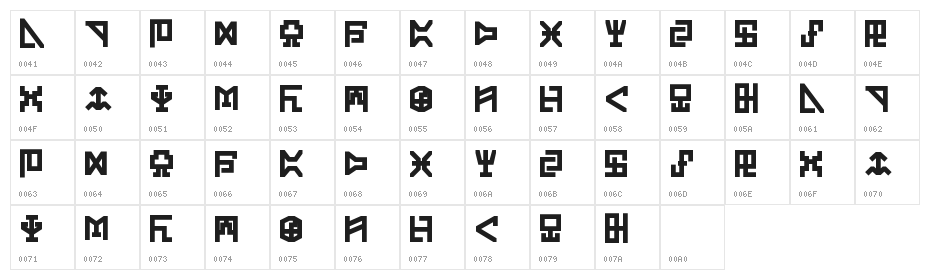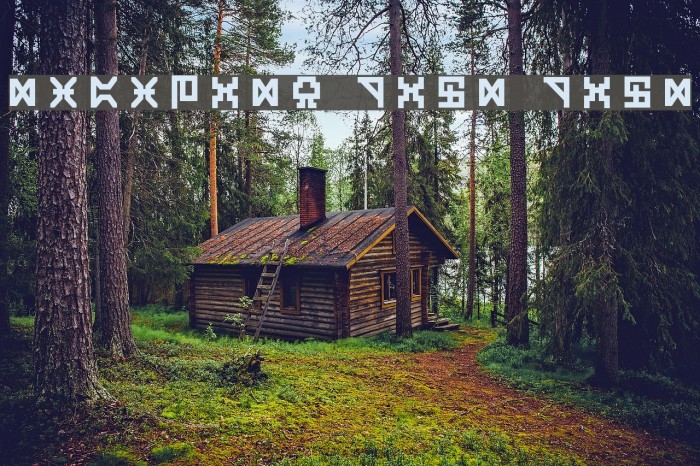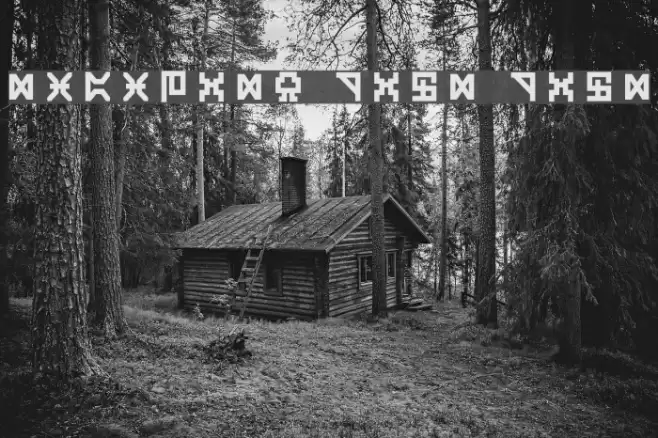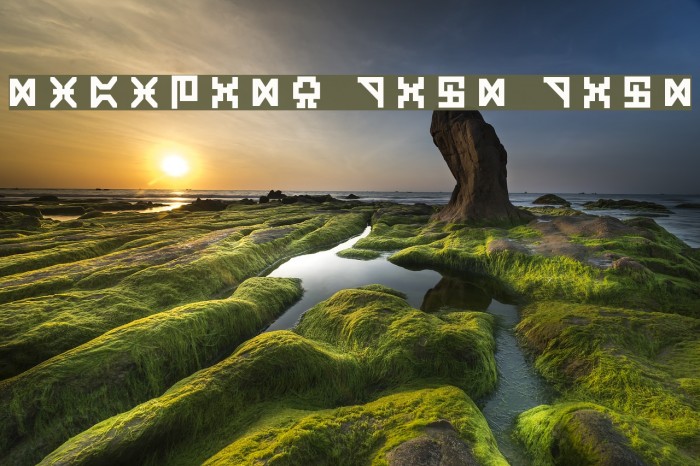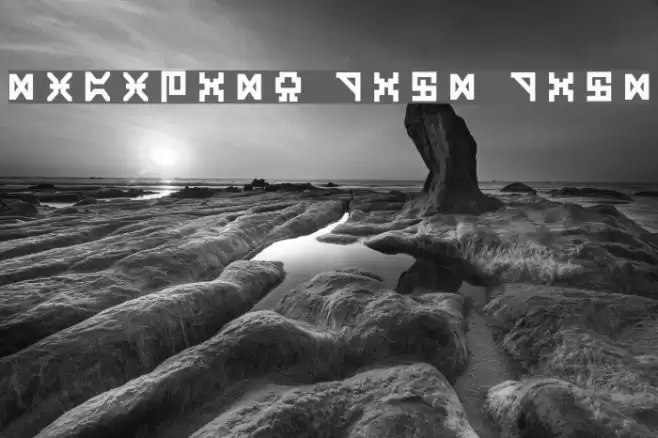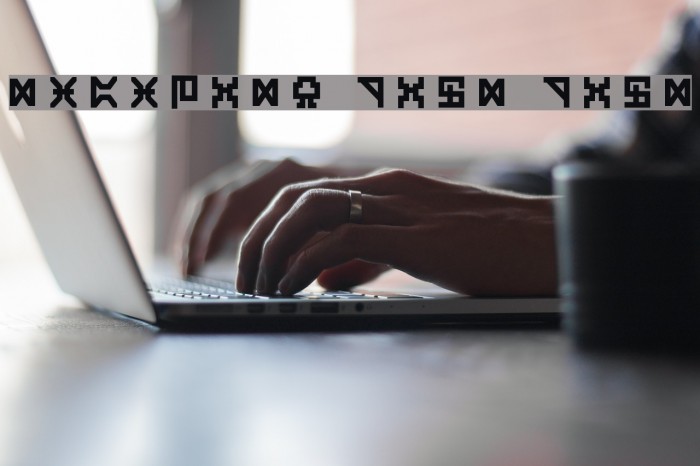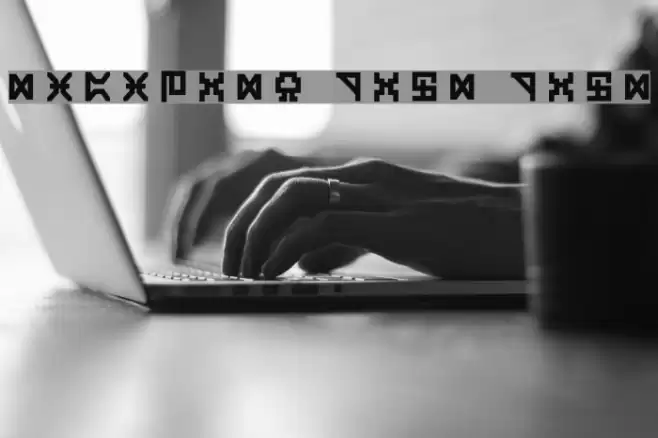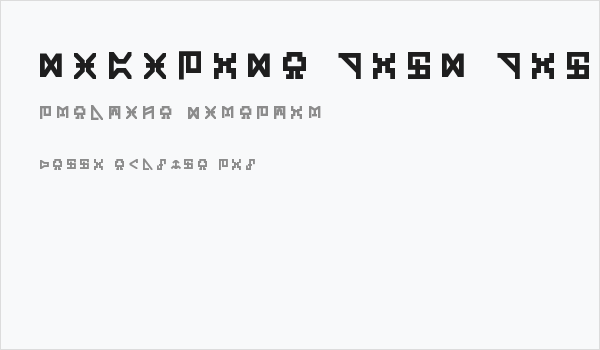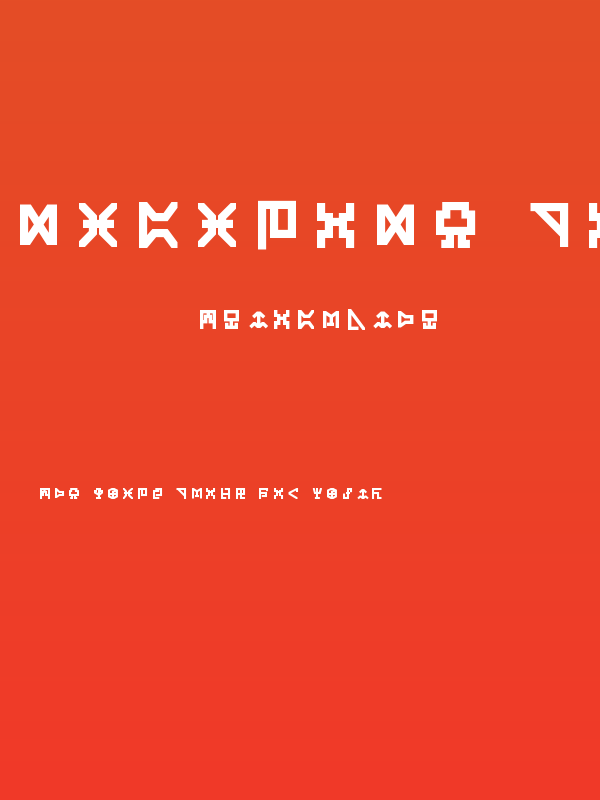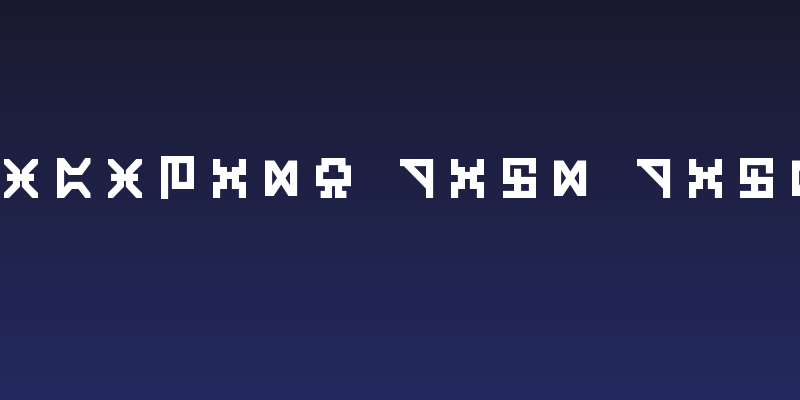
Digicode Bold Bold Font
Digicode Bold Bold Description
This font features a highly stylized and geometric design, reminiscent of digital or futuristic aesthetics. Each character is constructed with bold, angular lines and sharp edges, creating a sense of modernity and technological influence. The characters are uniform in height, with consistent stroke thickness throughout, contributing to a cohesive and structured appearance. The font's unique style makes it particularly suitable for projects that require a digital or sci-fi theme. Its boldness ensures high visibility and impact, making it ideal for attention-grabbing headlines or titles.
| Overall Style | Futuristic, Digital |
| Proposed Projects | Ideal for sci-fi themed designs, digital interfaces, video game graphics, and technology-related branding. |